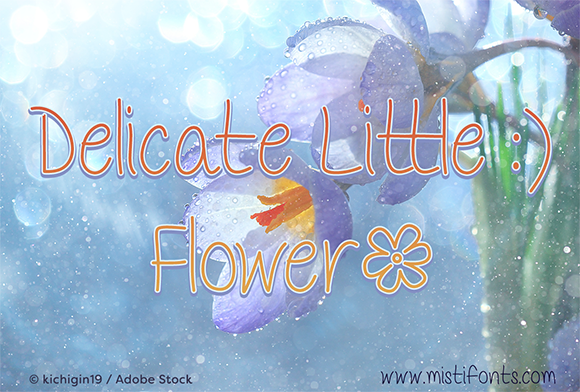
Delicate Little Flower Font
About Delicate Little Flower Font
Delicate Little Flower is a lighthearted font that is perfect for your design and craft projects!
Special Symbols:
Type * (asterisk) for the flower